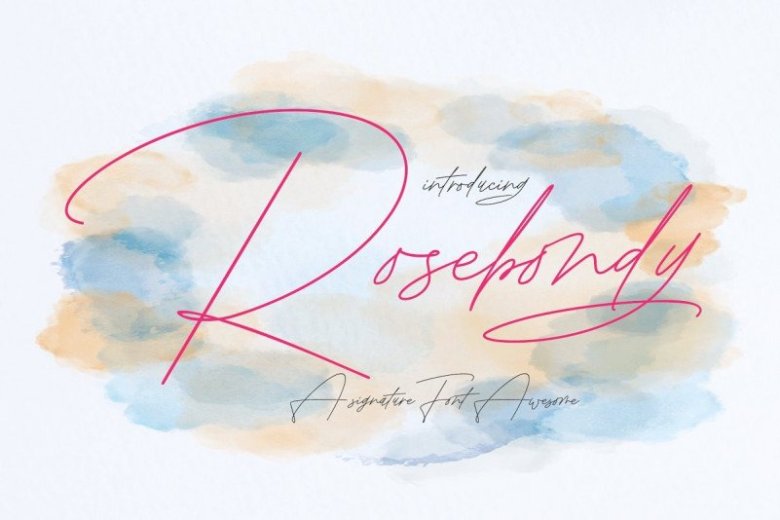
Rosebondy Script Font
Introducing Rosebondy Script Font. This is a new modern & fresh script with a handwritten and script style make this font looks elegant, natural, stylish and perfect for any awesome projects that need handwriting taste. It is design and shared by FADHIL.
It’s a font style handmade dancing and then live trace to have unique forms of Signature, the writing style is very pretty. Can be used for various purposes.such as headings, logos, wedding invitation, t-shirt, letterhead, signage, lable, news, posters, badges etc.